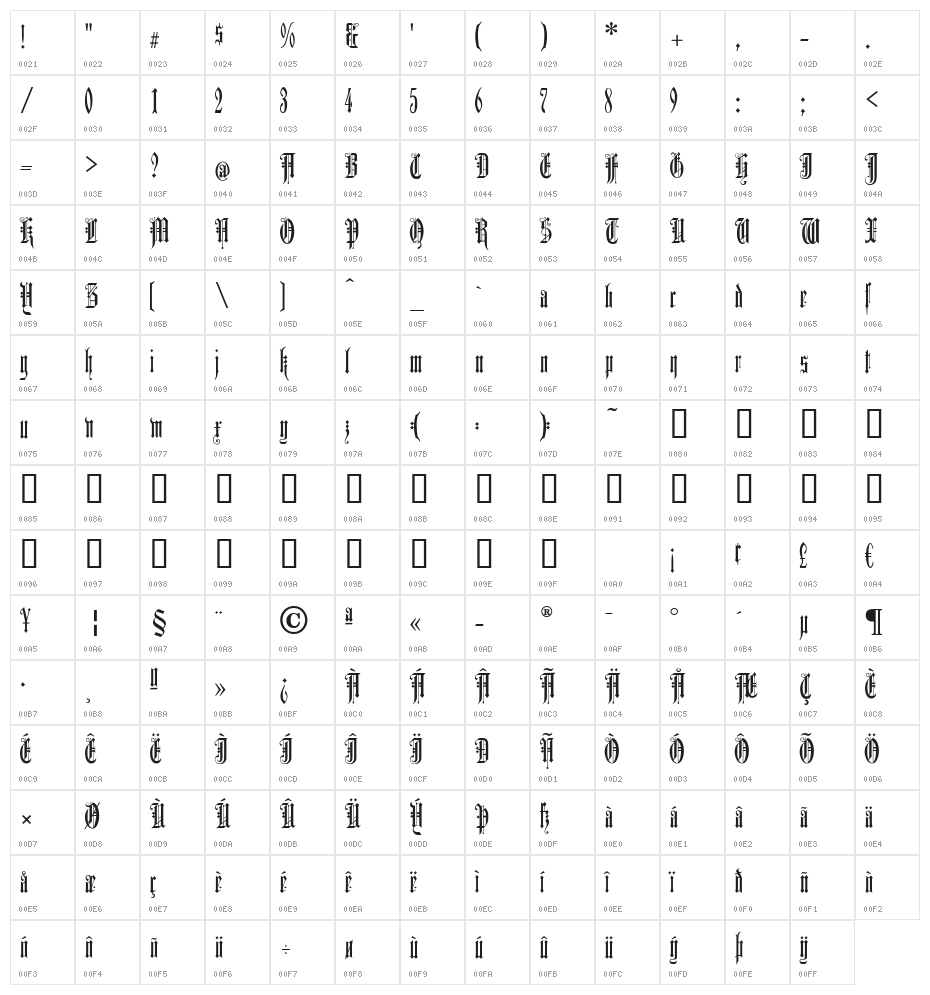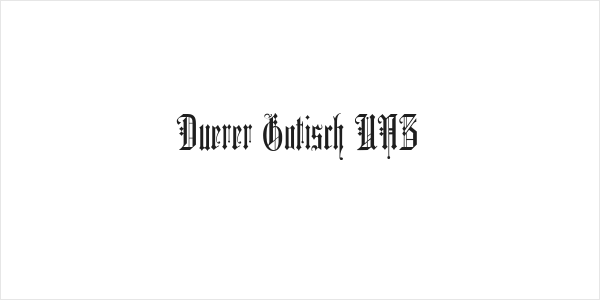
Duerer Gotisch UNZ Font
Duerer Gotisch UNZ Description
This font embodies the traditional and ornate characteristics of Blackletter typefaces, often associated with medieval manuscripts. The uppercase letters are highly decorative, featuring intricate flourishes and sharp angles that give them a gothic appearance. The lowercase letters maintain a similar style but are slightly more subdued, allowing for better readability. The numerals are consistent with the overall theme, featuring pointed edges and a bold presence. Special characters are designed to match the elaborate style, making this font ideal for projects that require a historical or dramatic flair.
| Use Case | Headlines, Logos, Decorative text |
| Proposed Projects | Ideal for historical documents, gothic-themed designs, book covers, and decorative posters. |